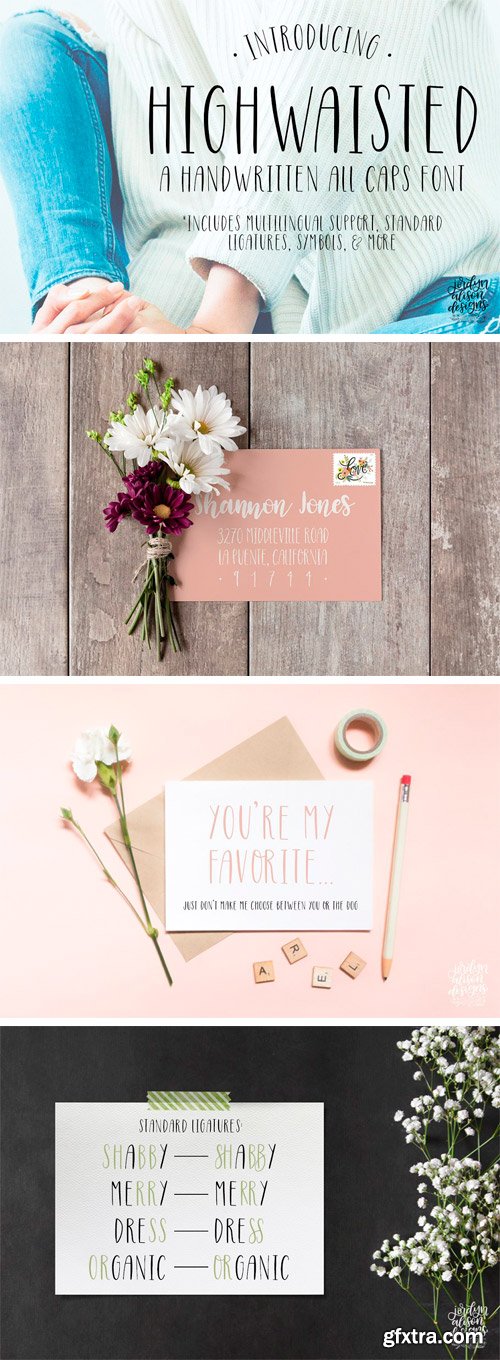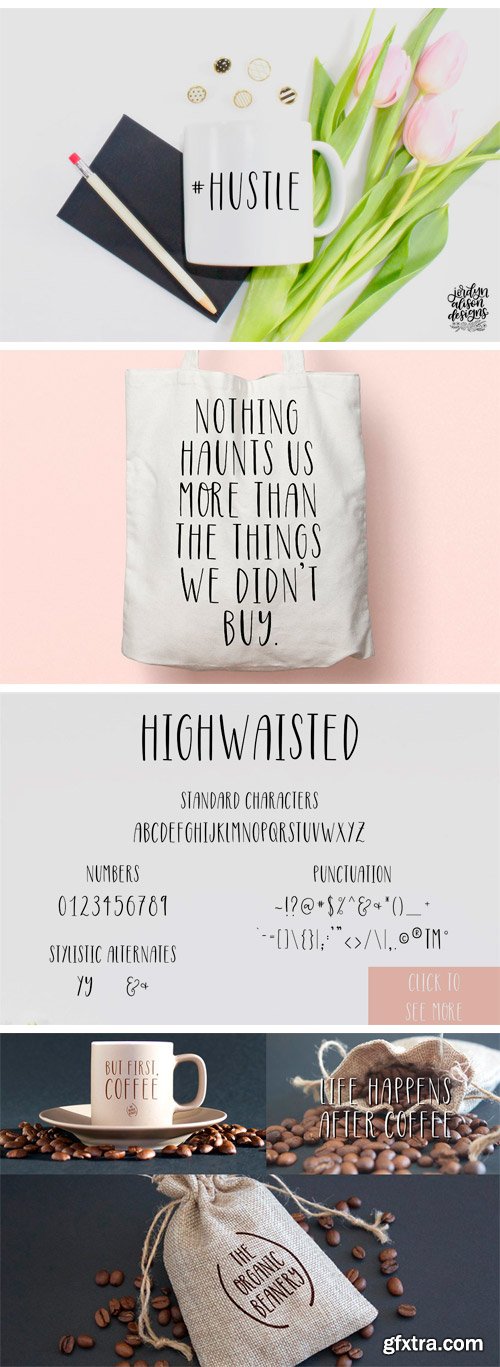
Highwaisted is a brand new hand-lettered all caps font! Full set of uppercase letters 5 ligatures Stylistic alternates Numbers and punctuation Multilingual support Highwaisted comes in both .otf and .ttf file formats. The .otf file is recommended to be used. If you have a program that doesn't support .otf files, the .ttf is included as a link in the font info file.